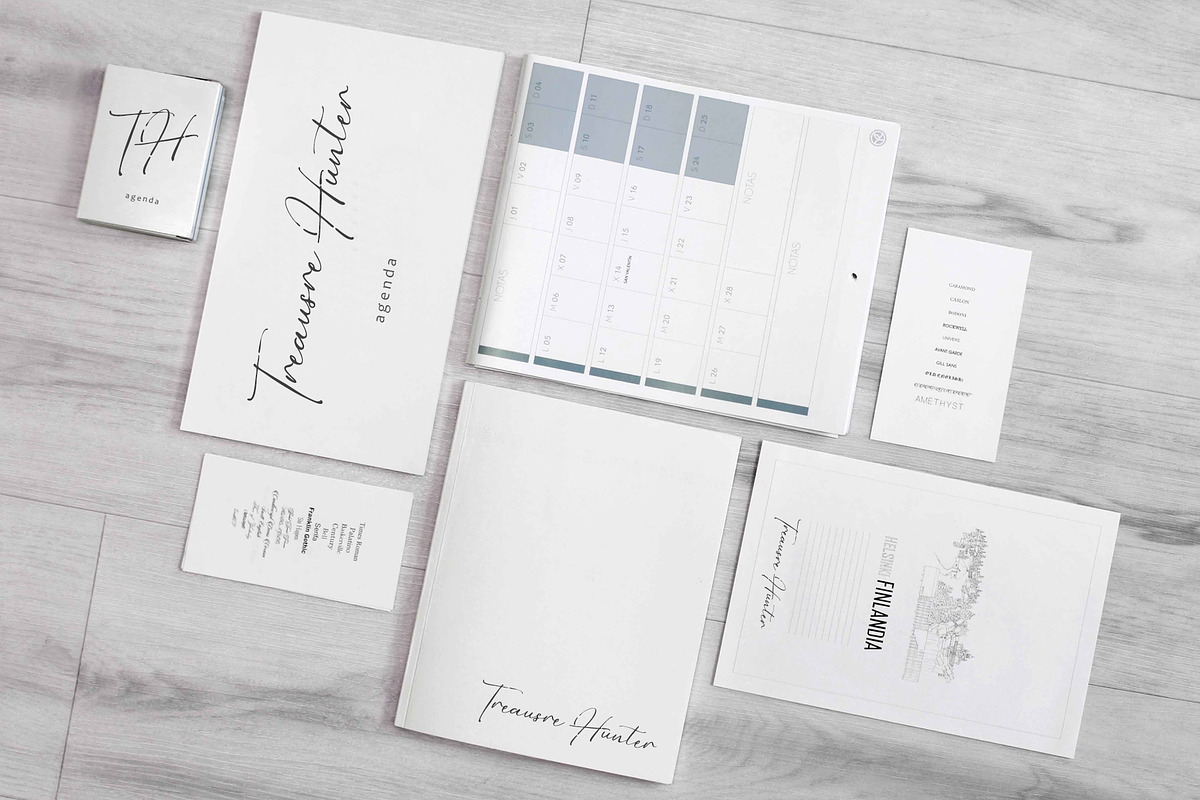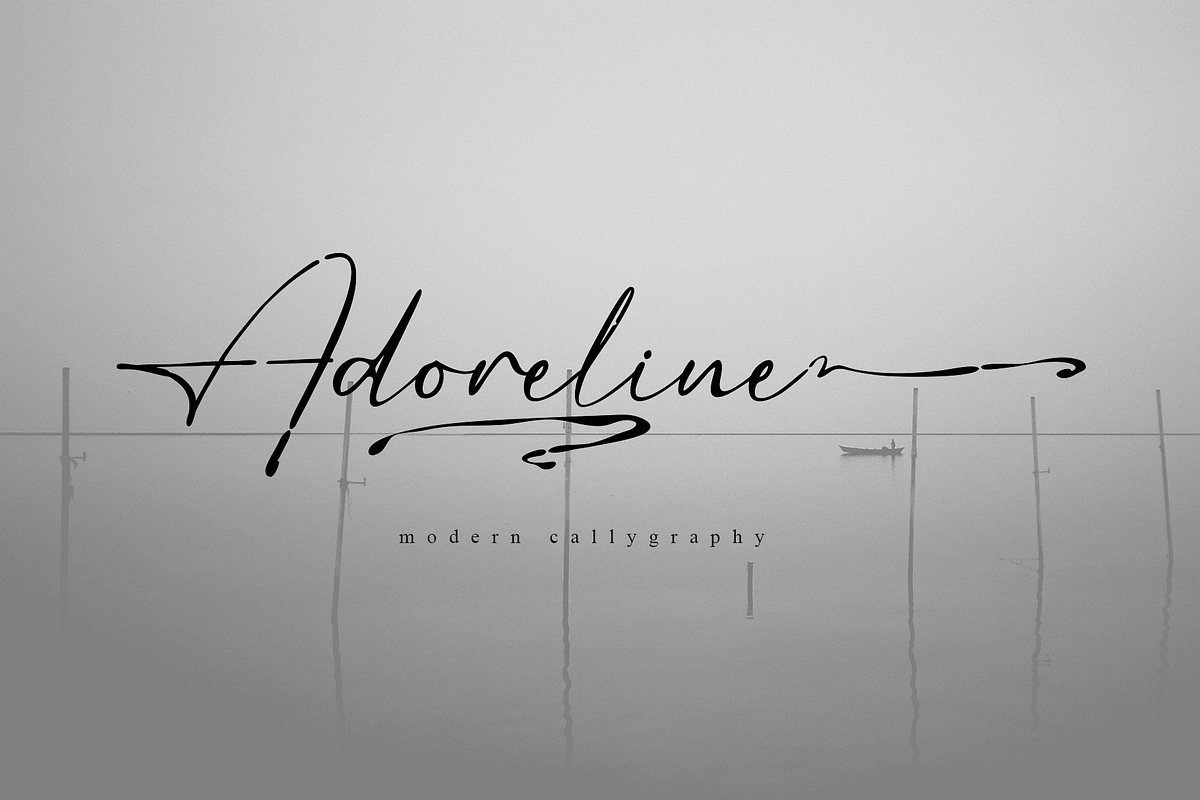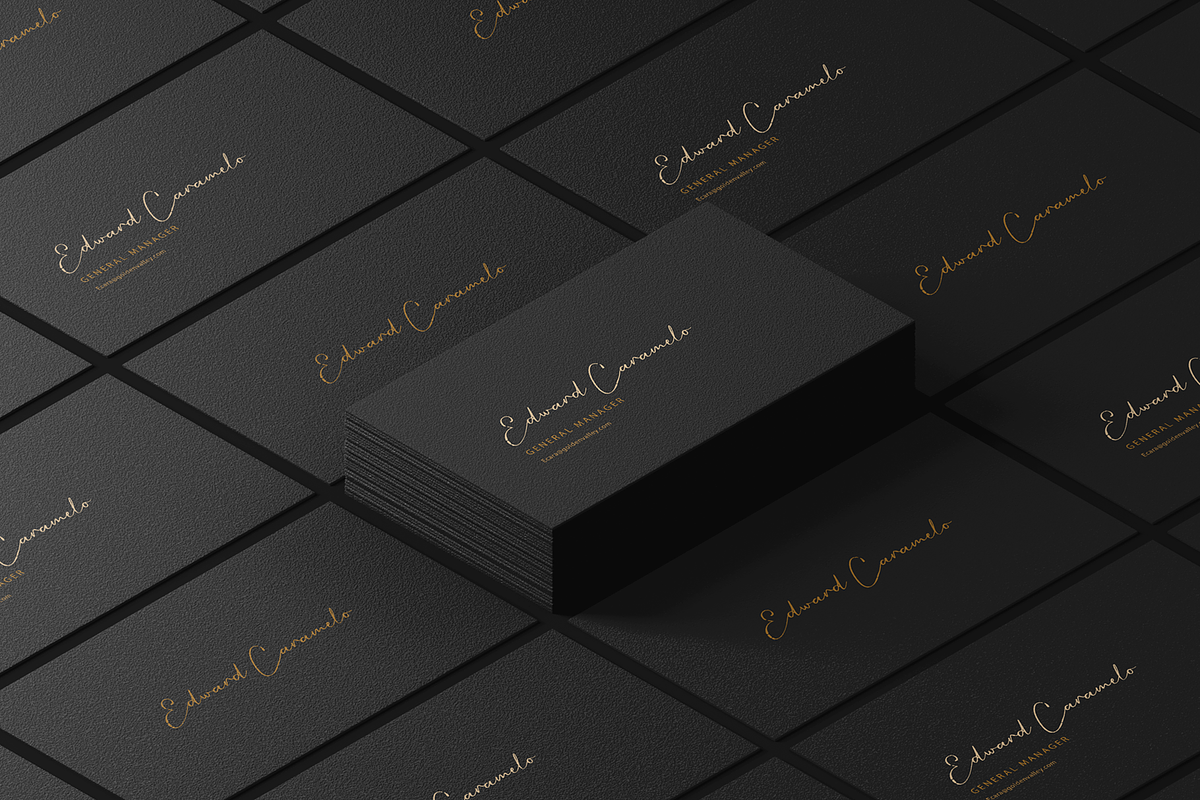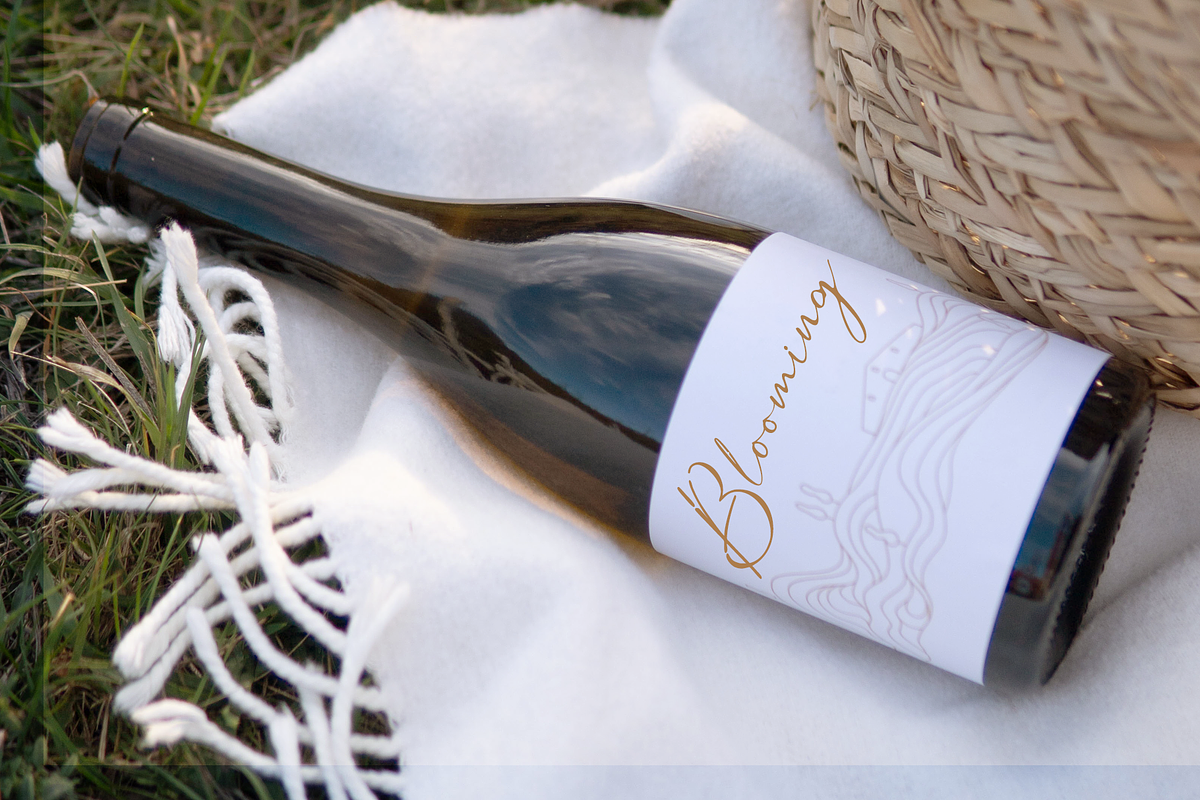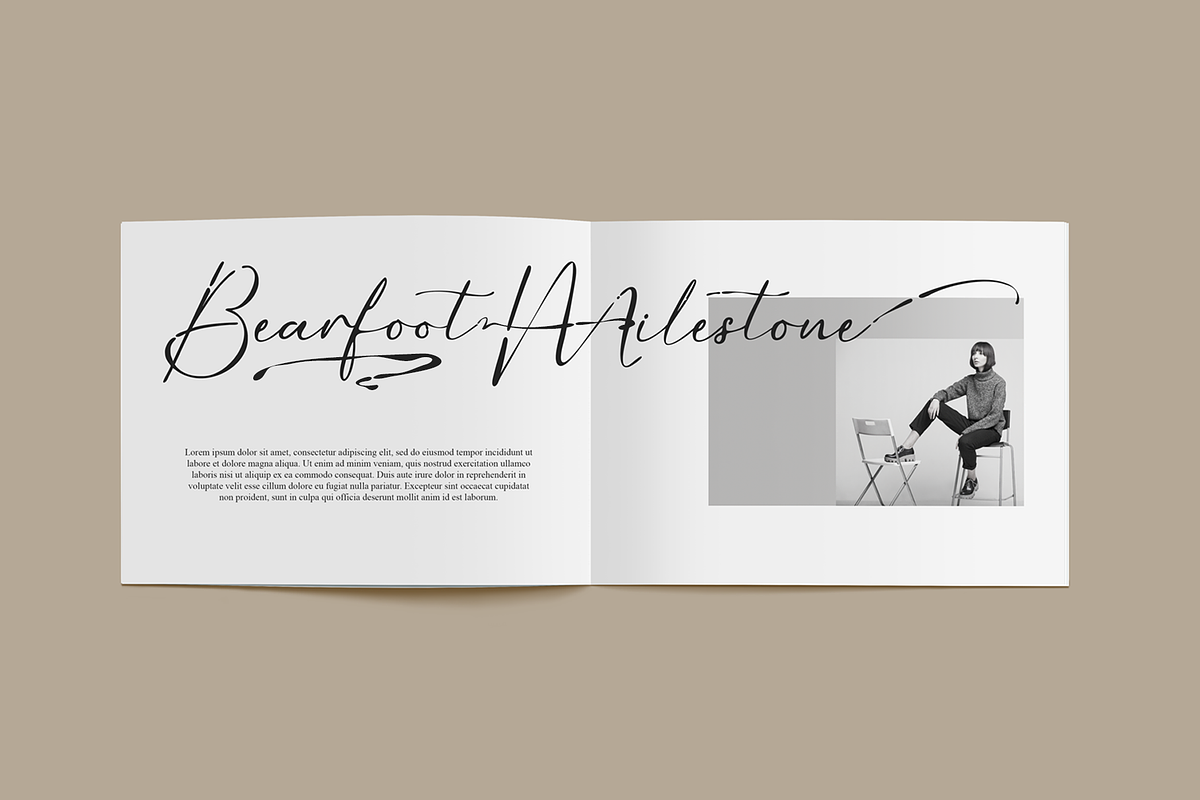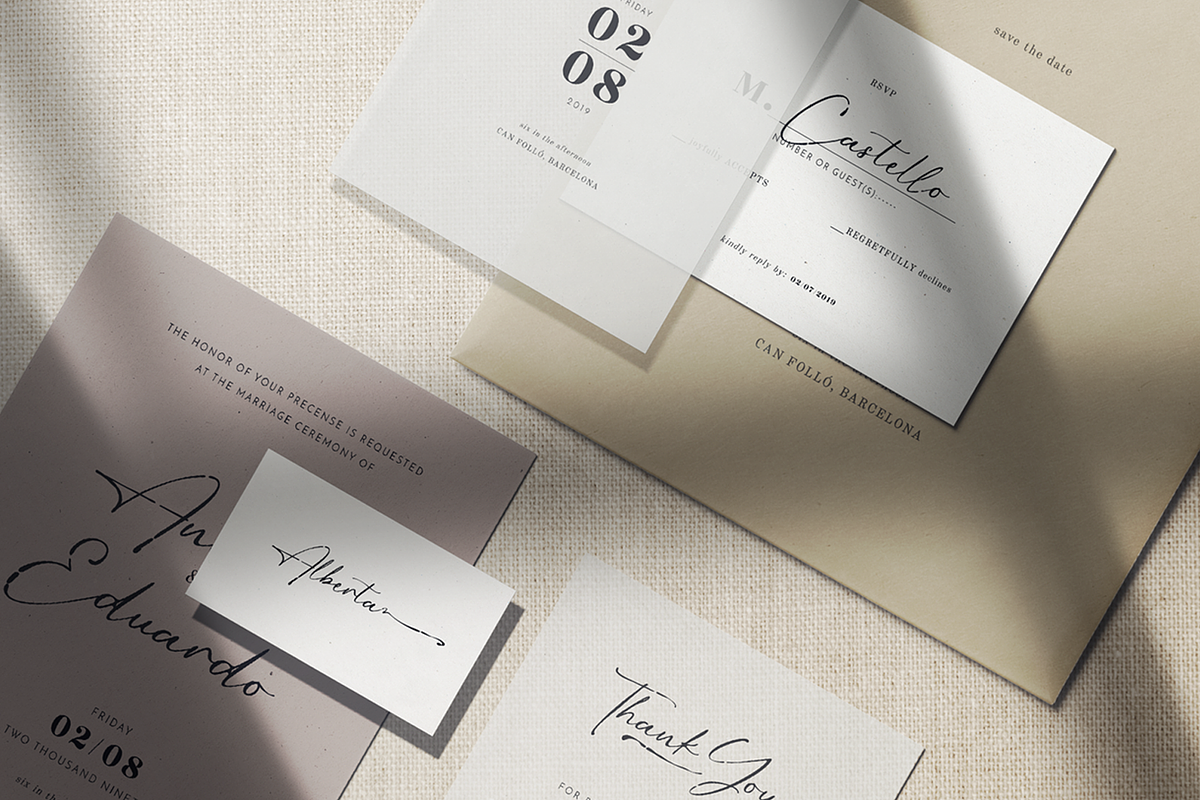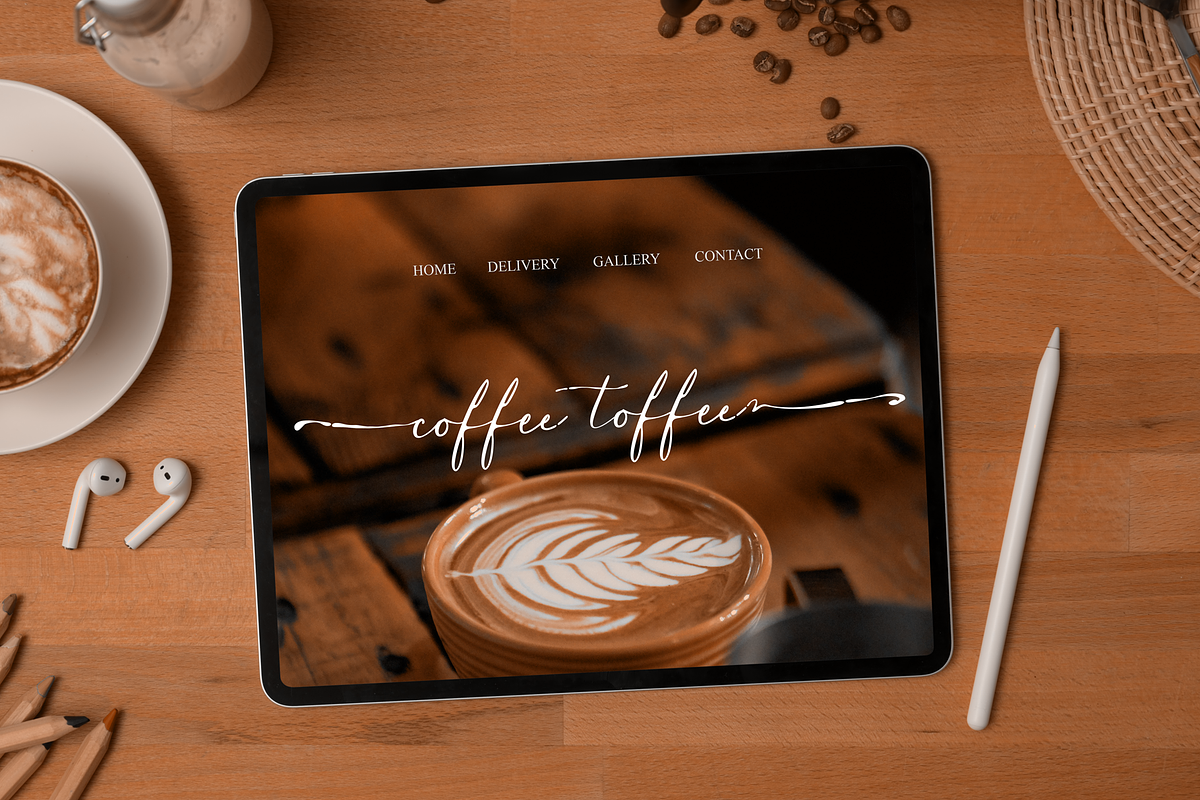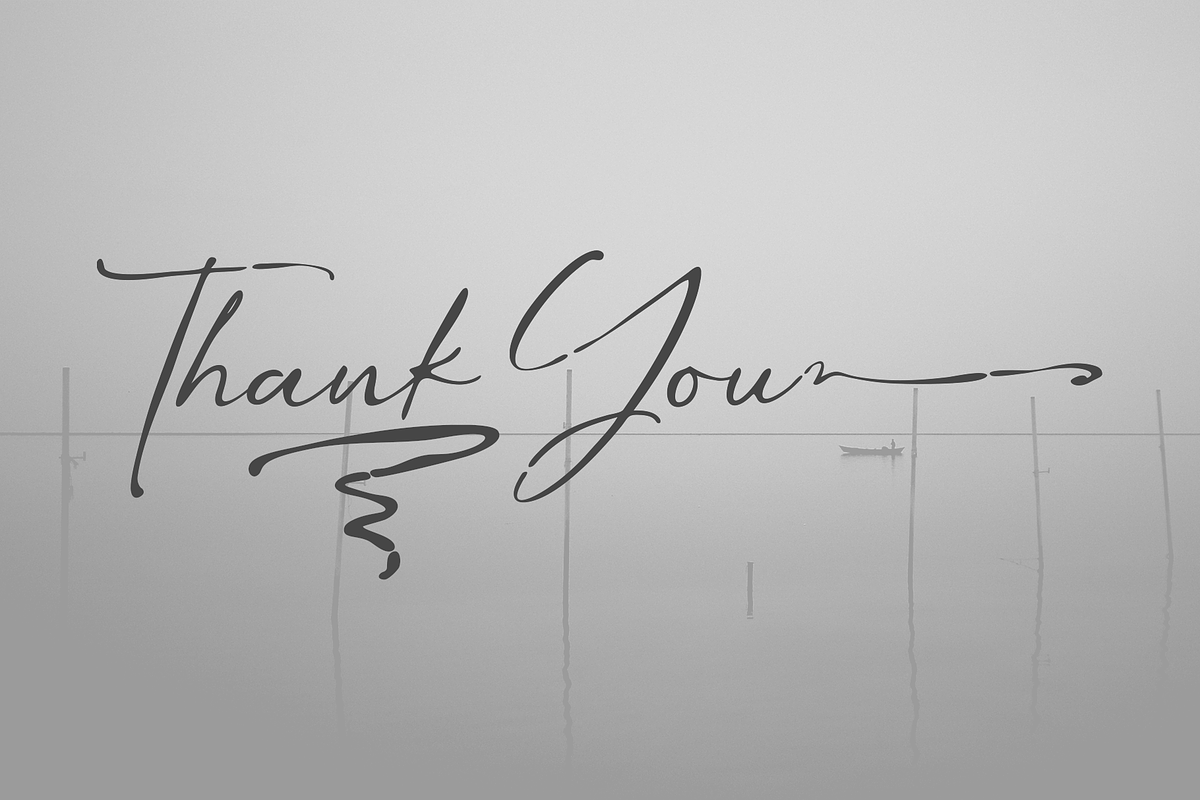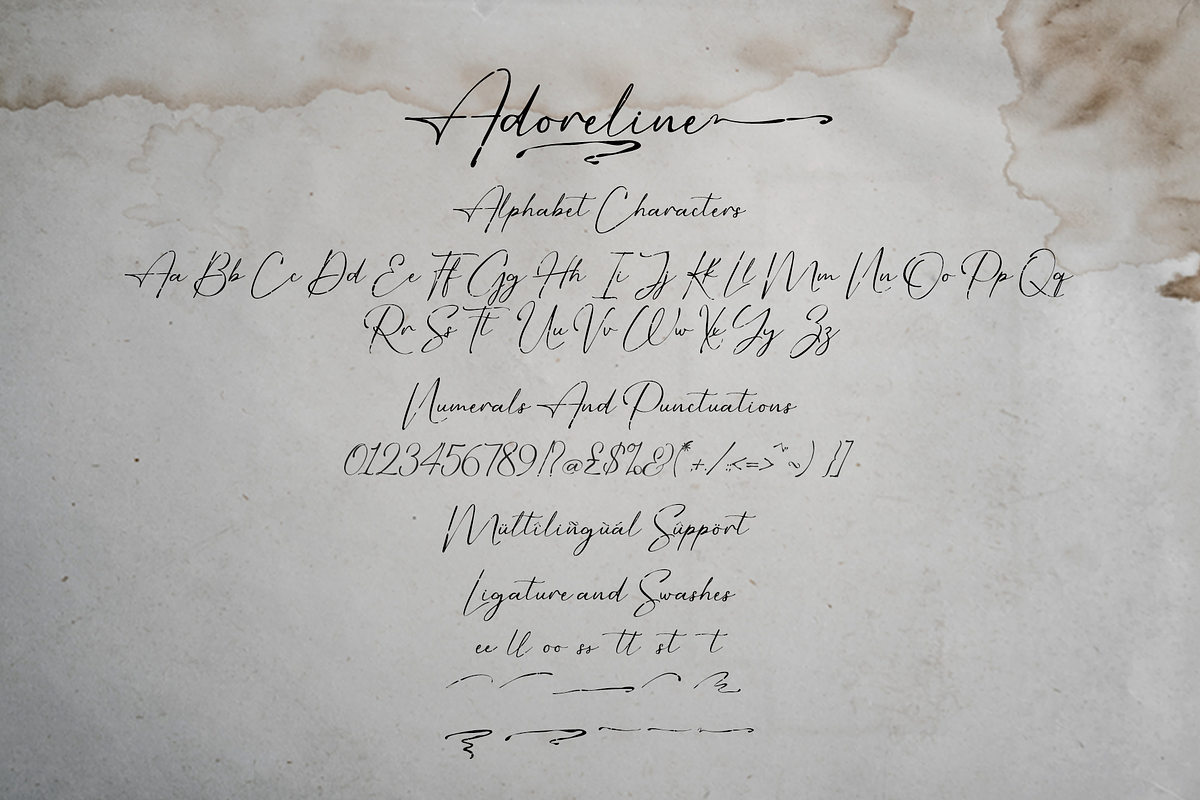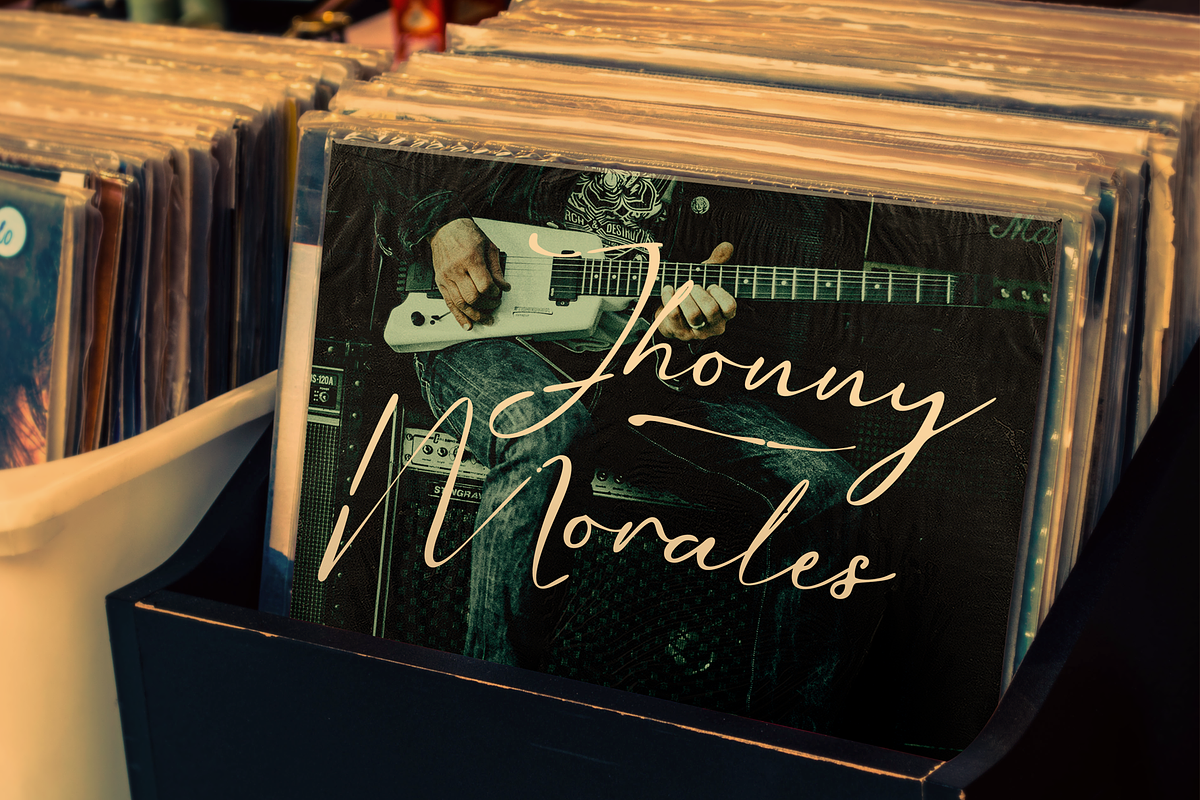
Adoreline
Adoreline is a stunning modern handwritten font. This extraordinary collection comes in a luxurious and elegant handwritten style. with the added support of ligatures and swashes to make it even more impressive, to give your designs the perfect look. Adoreline contains opentype features like swashes & ligatures. Perfect for logos, printed quotes, badges, packaging, titles, posters, t-shirts / clothing, greeting cards and wedding invitations, & more.